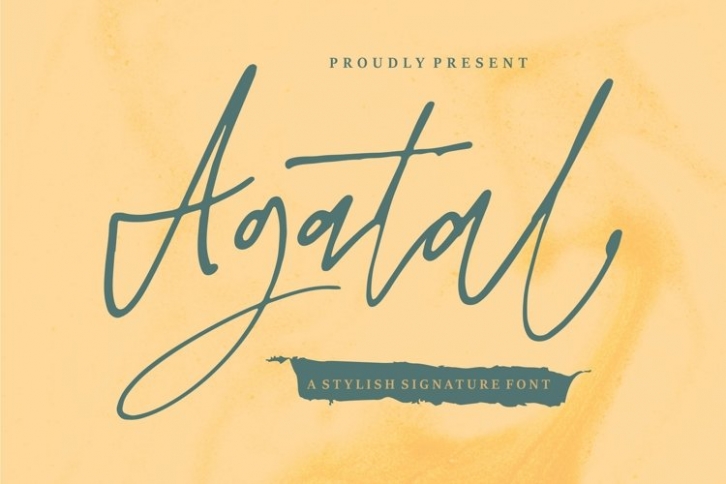
Agatal is a beautiful font that was designed by plusstore. It's a great choice for designers and creatives who need such a font. It was released on May 8, 2021 and the file size is 12.69 MB. Agatal may give a more youthful, expressive and casual look to your project. It is a very beautiful, refined, elegant, and high-quality font.